Regular Lines
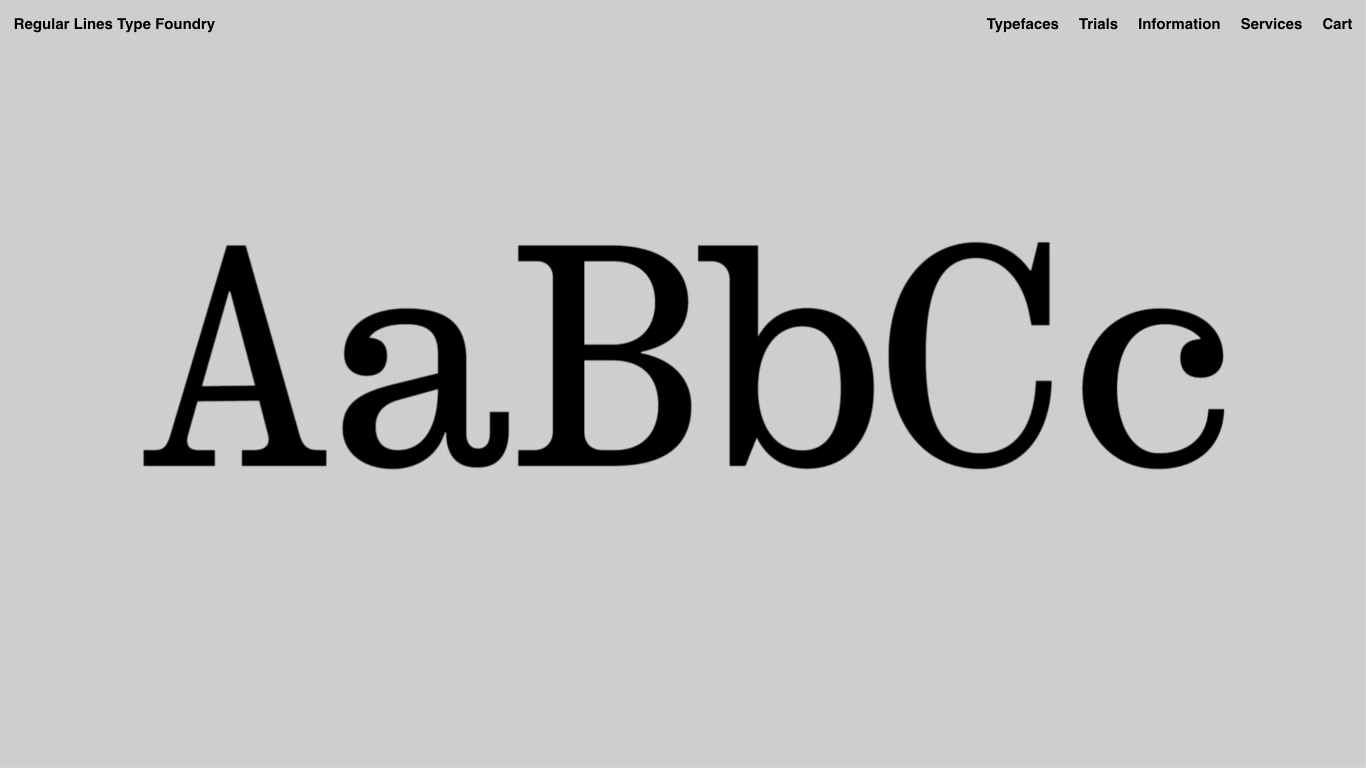
Czechia
2023
Regular Lines Type Foundry, based in Prague, was founded in 2023 by designers Jozef Ondrík and Matej Vojtuš. The studio releases striking retail fonts like RL Refusit and RL Slack, with Refusit drawing inspiration from Futura Black and gaining traction in projects for Nike and GQ Korea. Beyond retail, Regular Lines offers custom type services across scripts—from Latin and Cyrillic to Greek, Thai, Hebrew, and Arabic—serving a diverse roster of clients including Apple Music, Nike, GQ Korea, The National Gallery Prague, Levi's, and Studio Pixle.